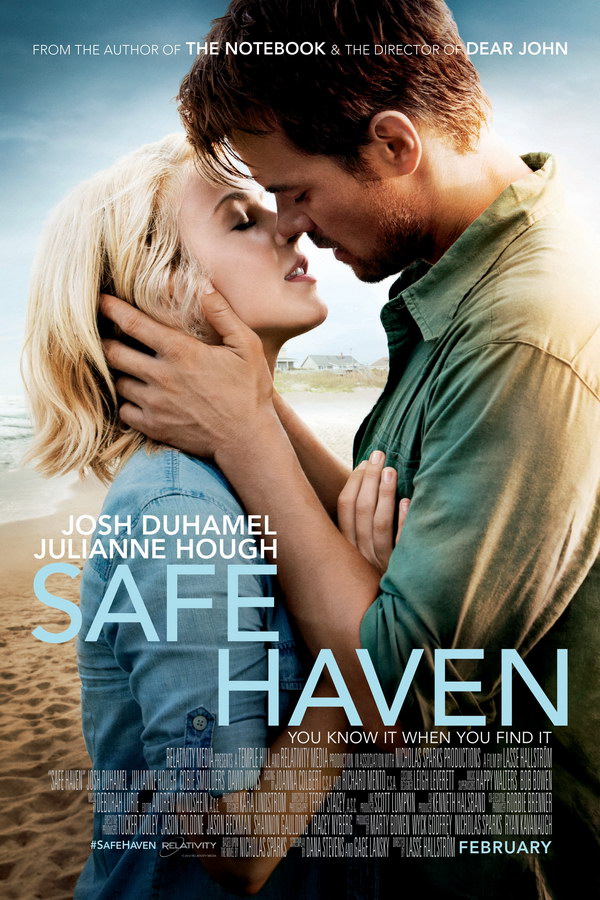
Safe Haven Font
Fonts in UseSafe Haven is a 2013 romantic drama film based on a novel by Nicholas Sparks. The story follows a young woman with a dark past who finds love and redemption in a small coastal town, but her past threatens to catch up with her.
The font used for the movie title in the poster appears to be Avenir, a geometric sans-serif typeface created by Adrian Frutiger in 1988. Avenir is a commercially available font, and you can find more information about it here.